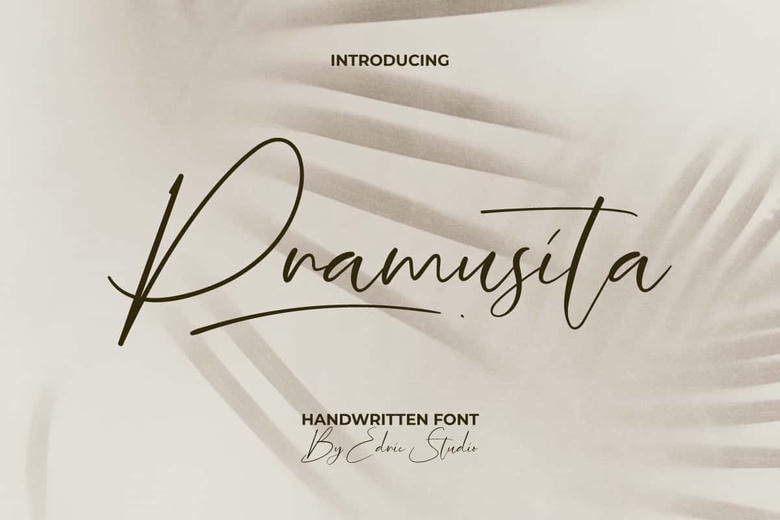
Pramusita Font
Pramusita is an elegant modern handwritten font. Its casual appeal makes it friendly, easy to read, and ultimately versatile. It also has a stunning and charming swoosh that makes it perfect for a variety of designs, including blogs, greeting cards, headers, headline, invitations, label, logo, quotes, screen printing, sticker, text art on background, title, websites and more.
Pramusita comes with a full set of Uppercase and Lowercase Basic Characters, Number, a large range of Punctuation, Symbol, and Swoosh. This font is absolutely gorgeous with its subtle curves that are designed to draw attention. It’s sure to look great in any context, whether used on a busy background or as a standalone title! Get creative without limits with this font that will add a personal touch to any project, advertising, bakery, event organizer, home furniture, photography, restaurant, spa salon, sweetshop, wedding, etc.
Pramusita Handwritten Script Font